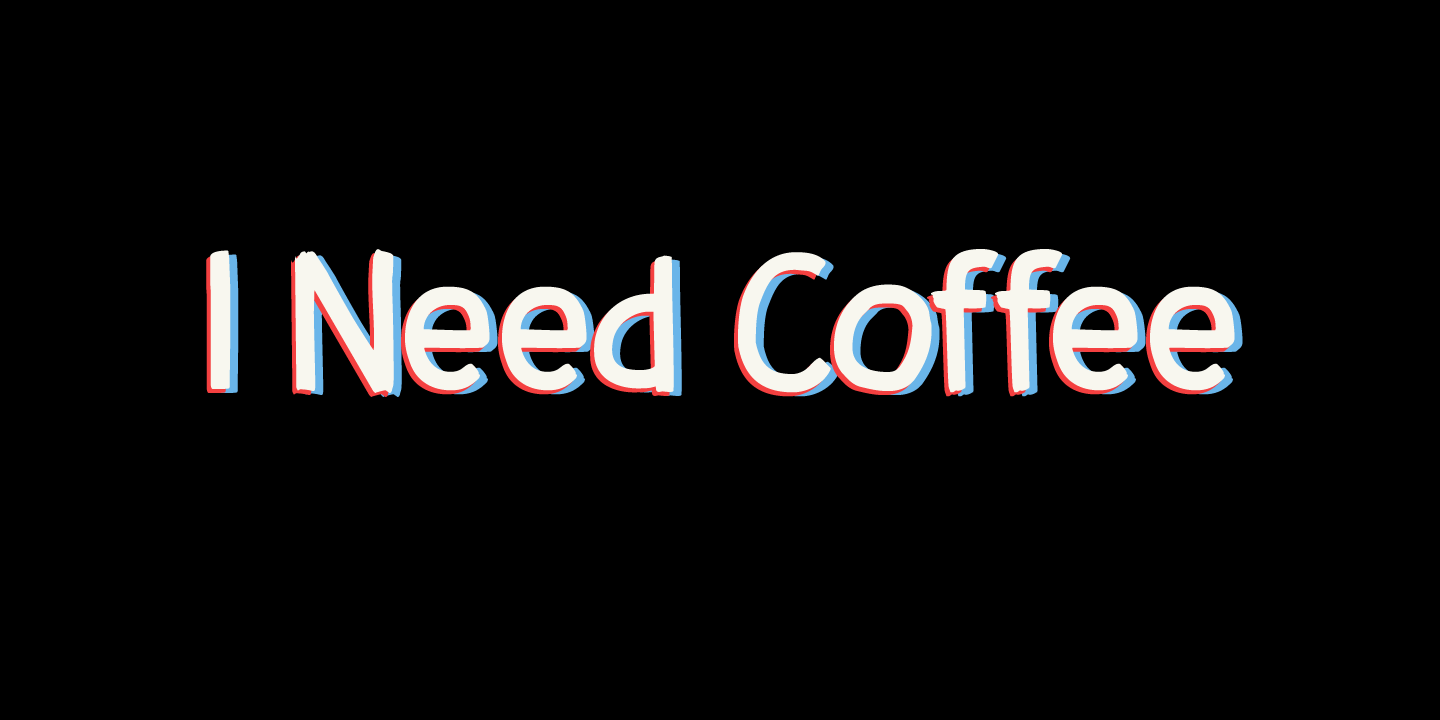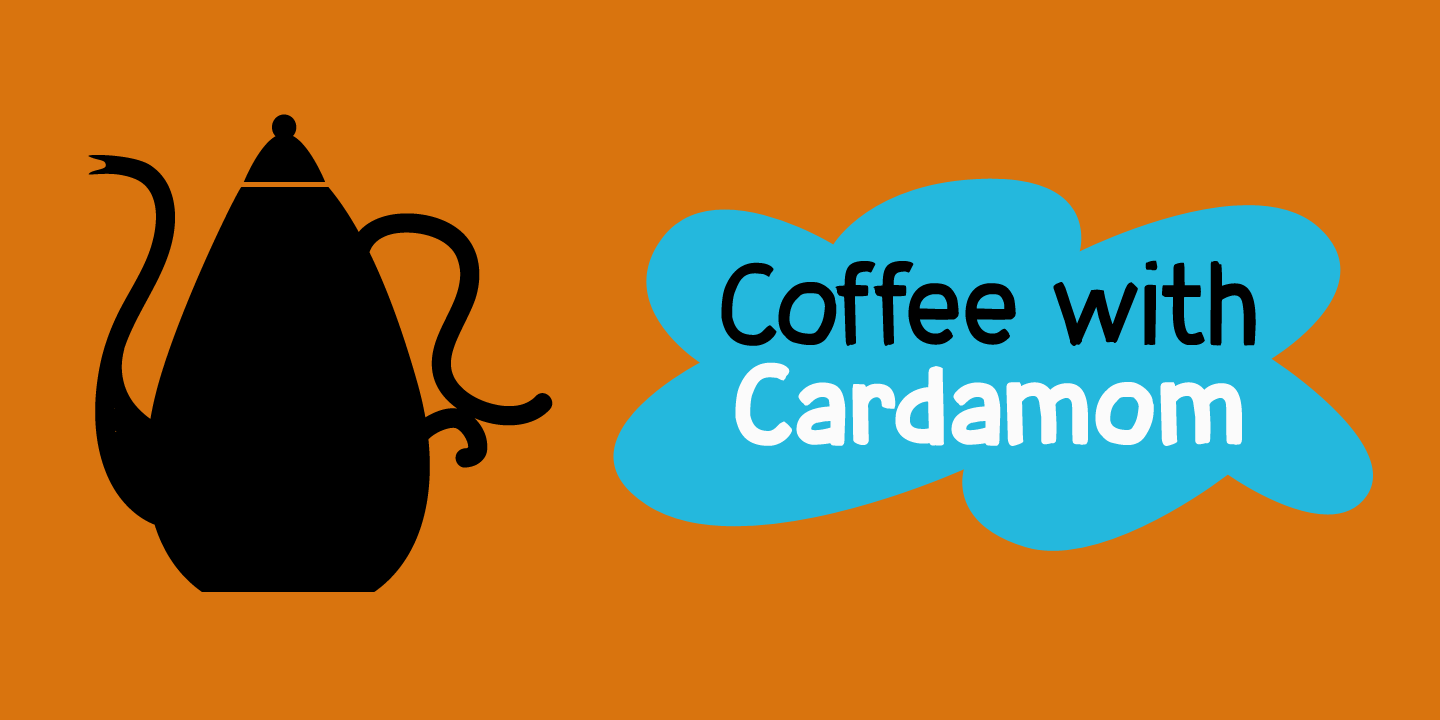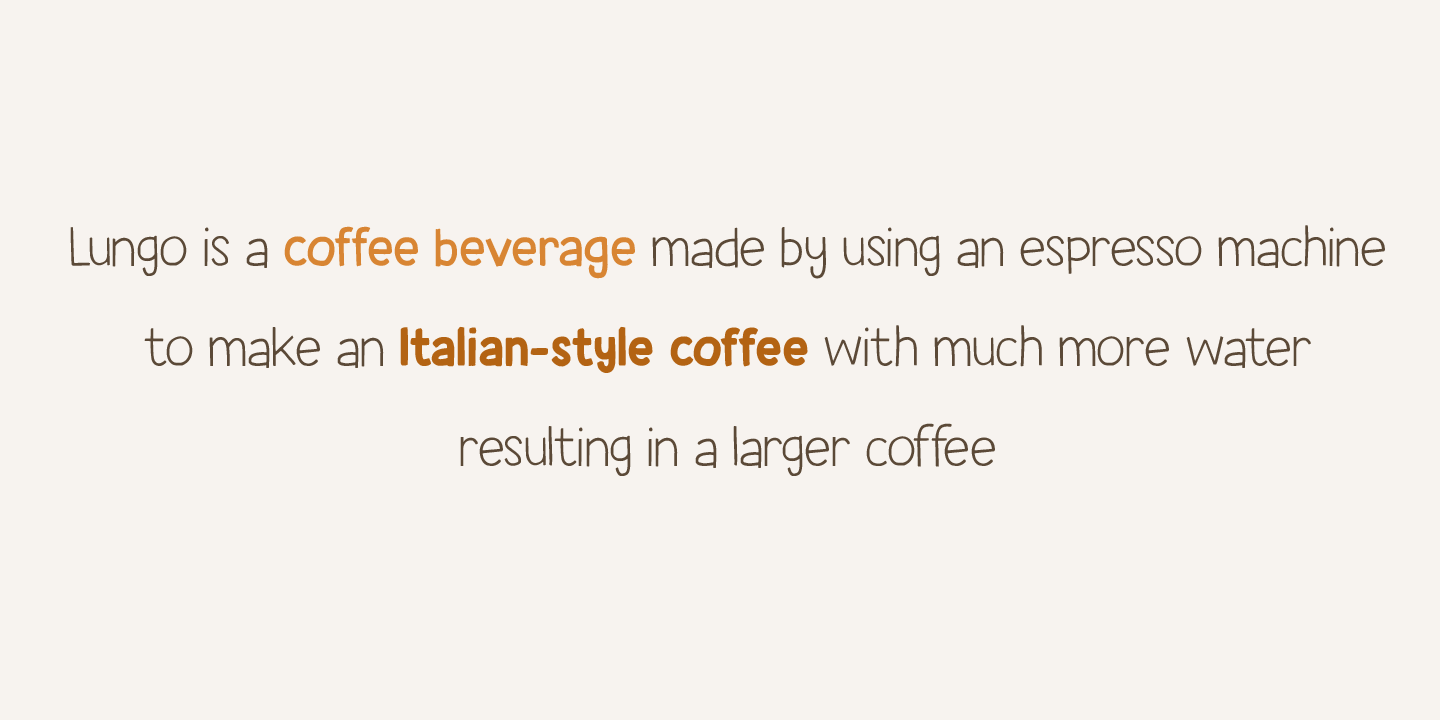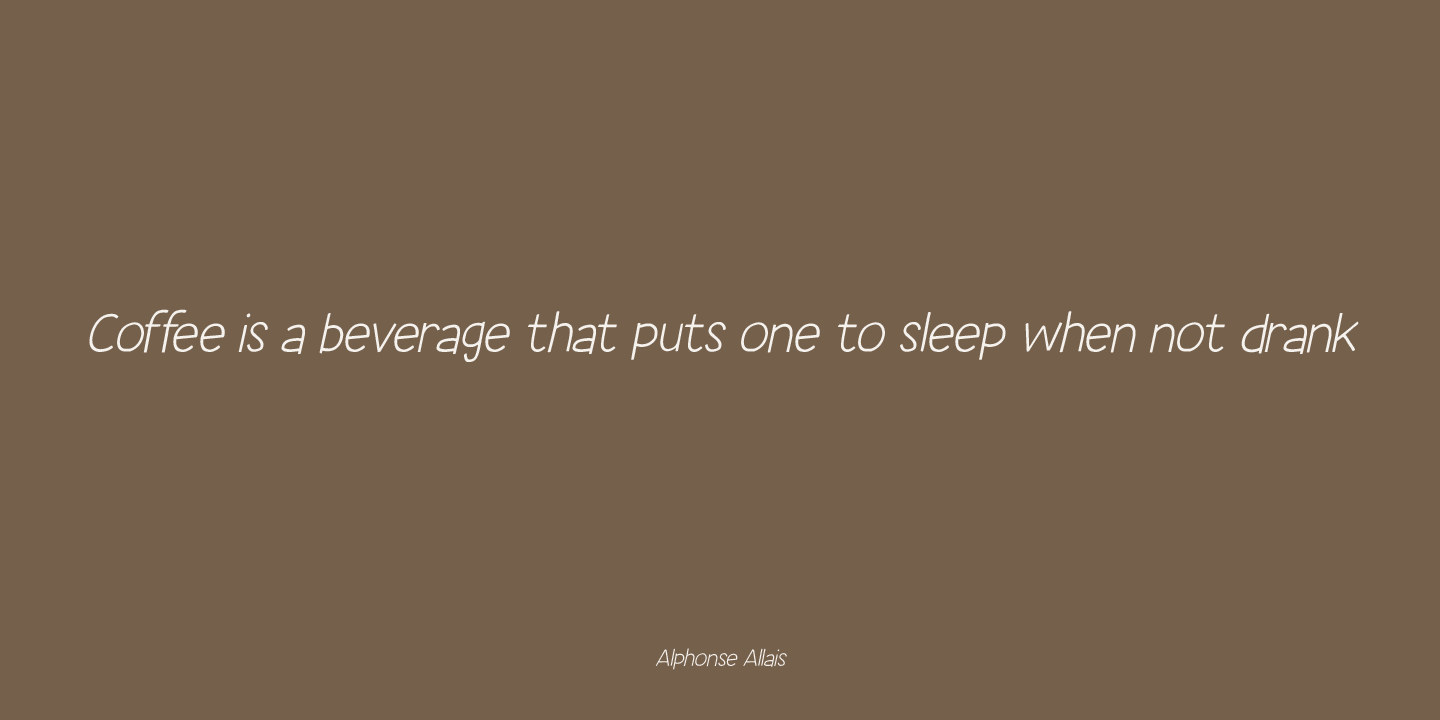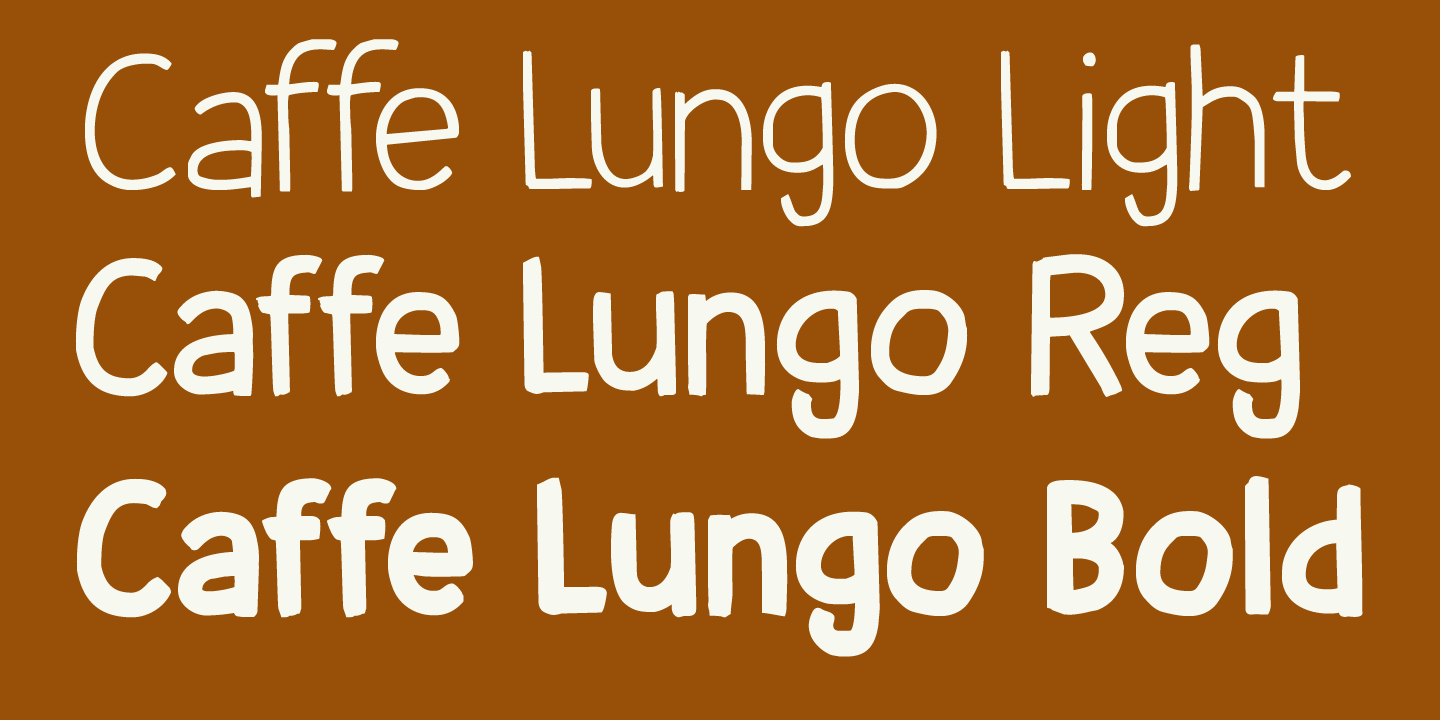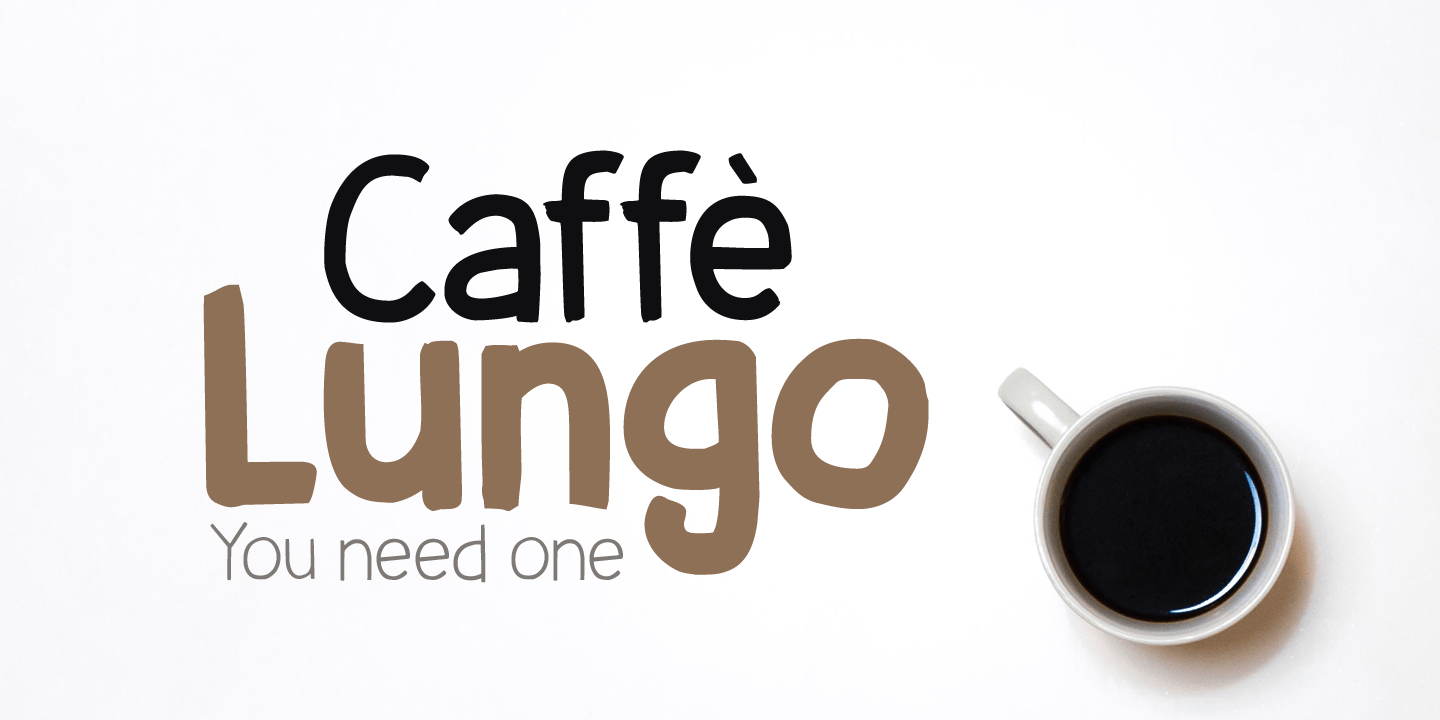
Caffe Lungo
About Caffe Lungo
Caffe Lungo is a beautiful set of handmade fonts. Lungo is very legible, very clear, but has that authentic ?handmade? look. I wanted to call this font Caffe Latte, or Caffe Espresso, but those names were already taken, so I settled for Caffe Lungo.…